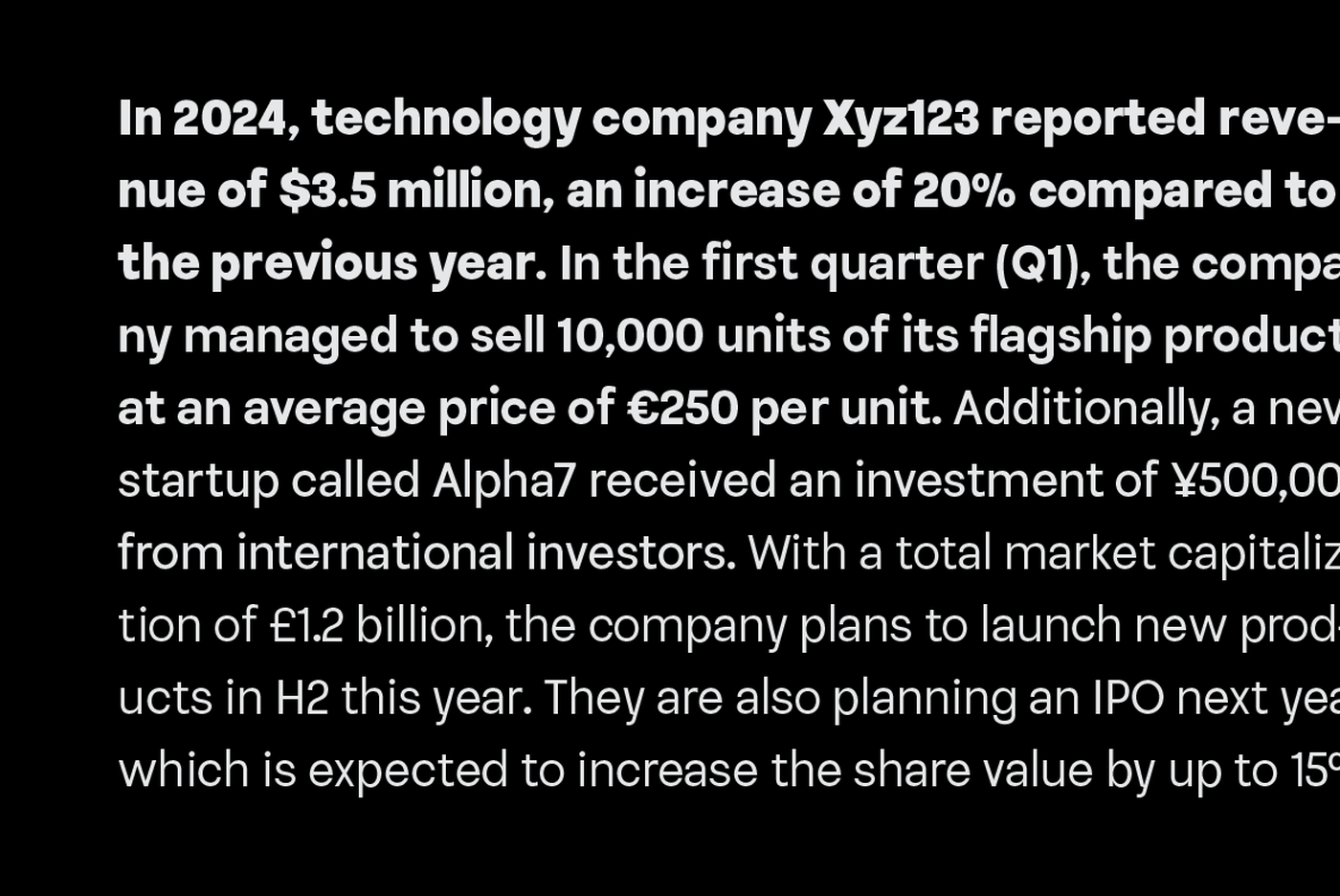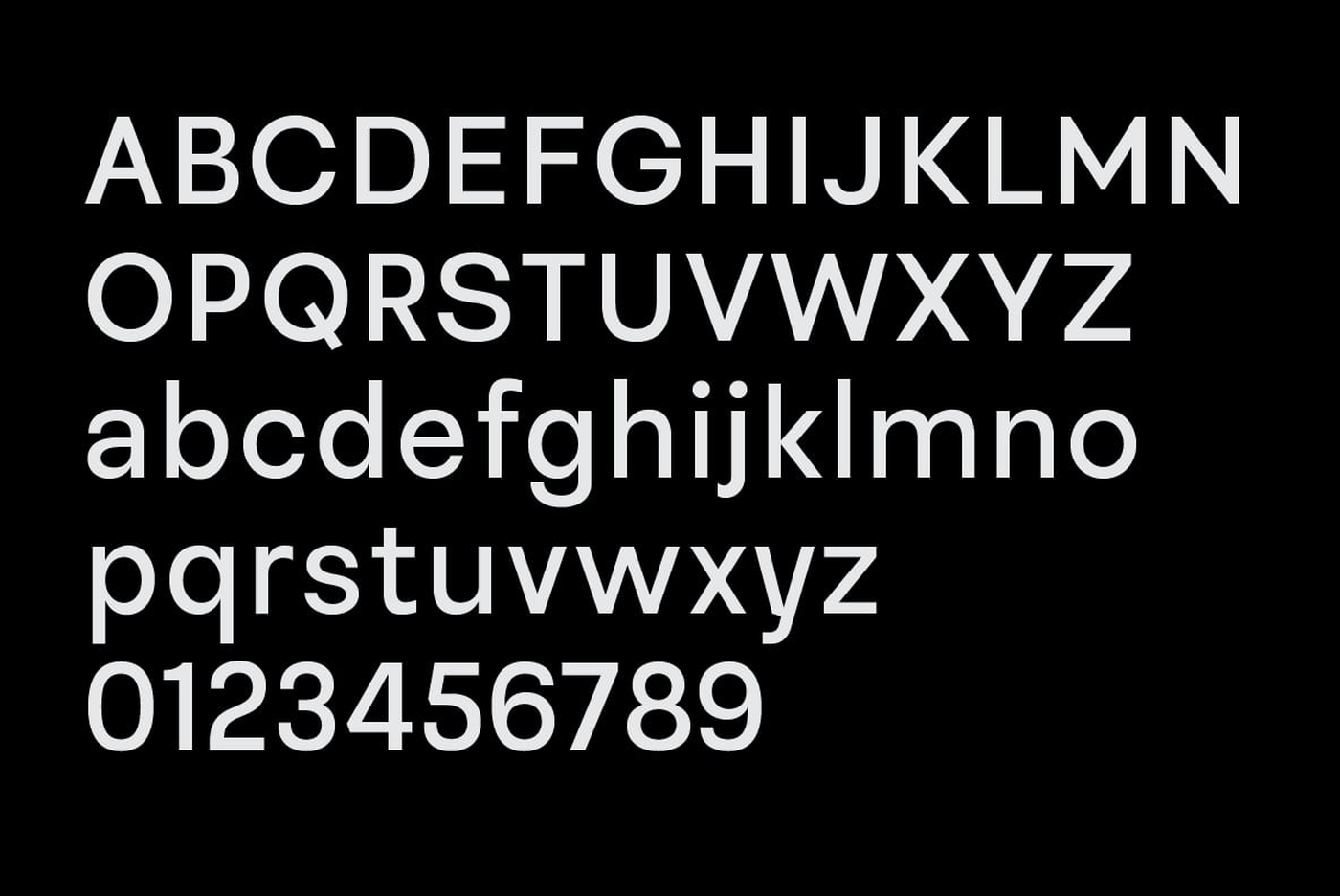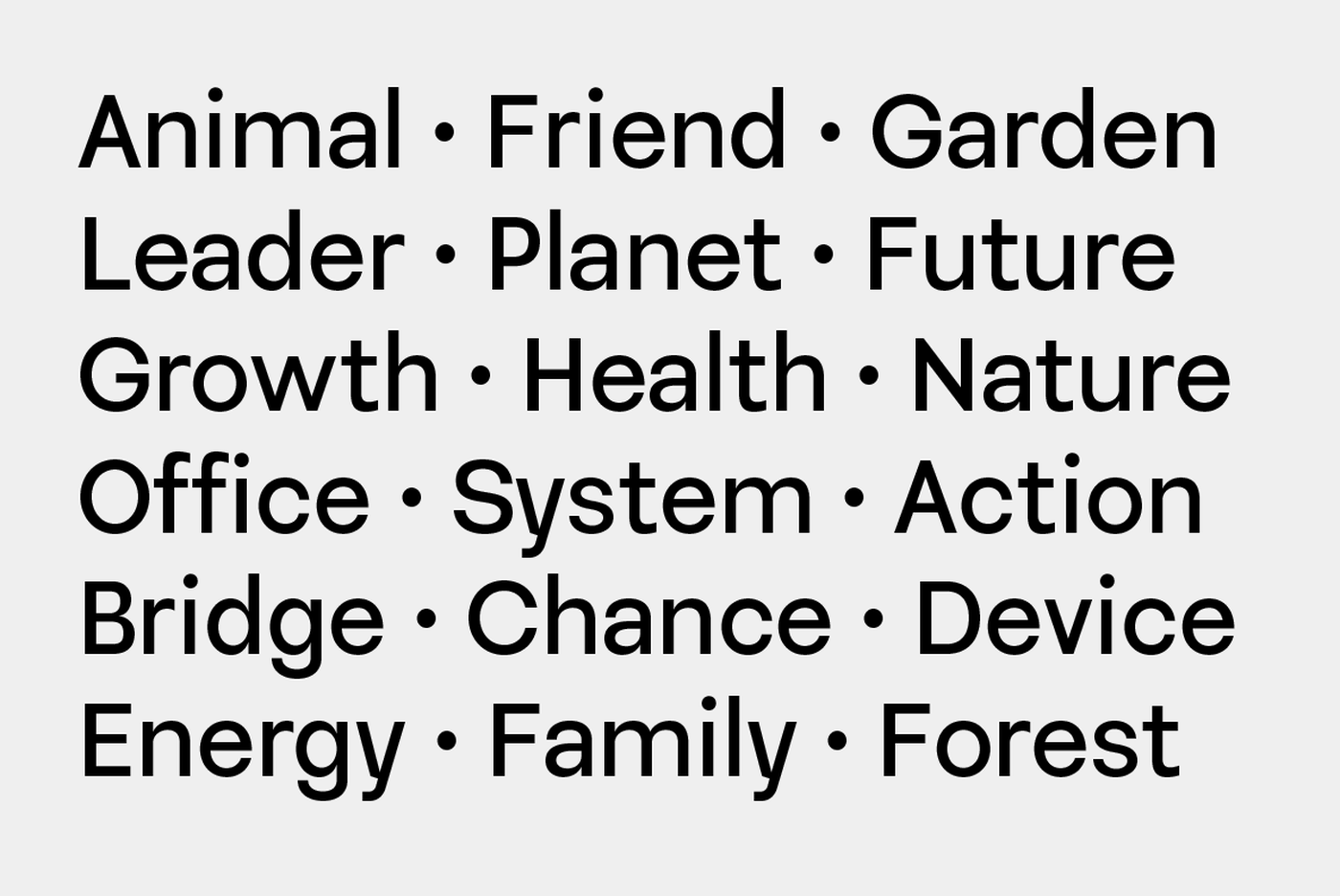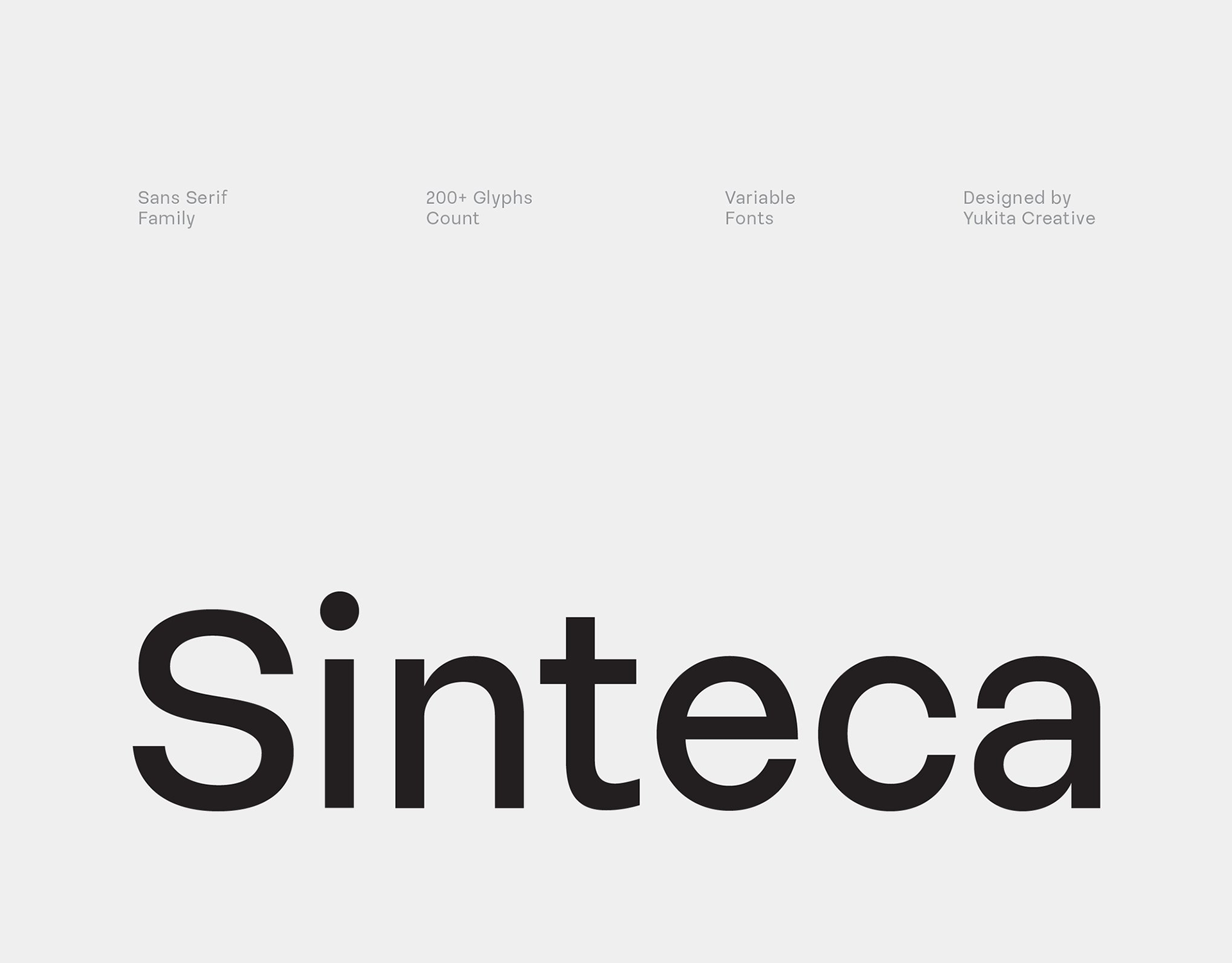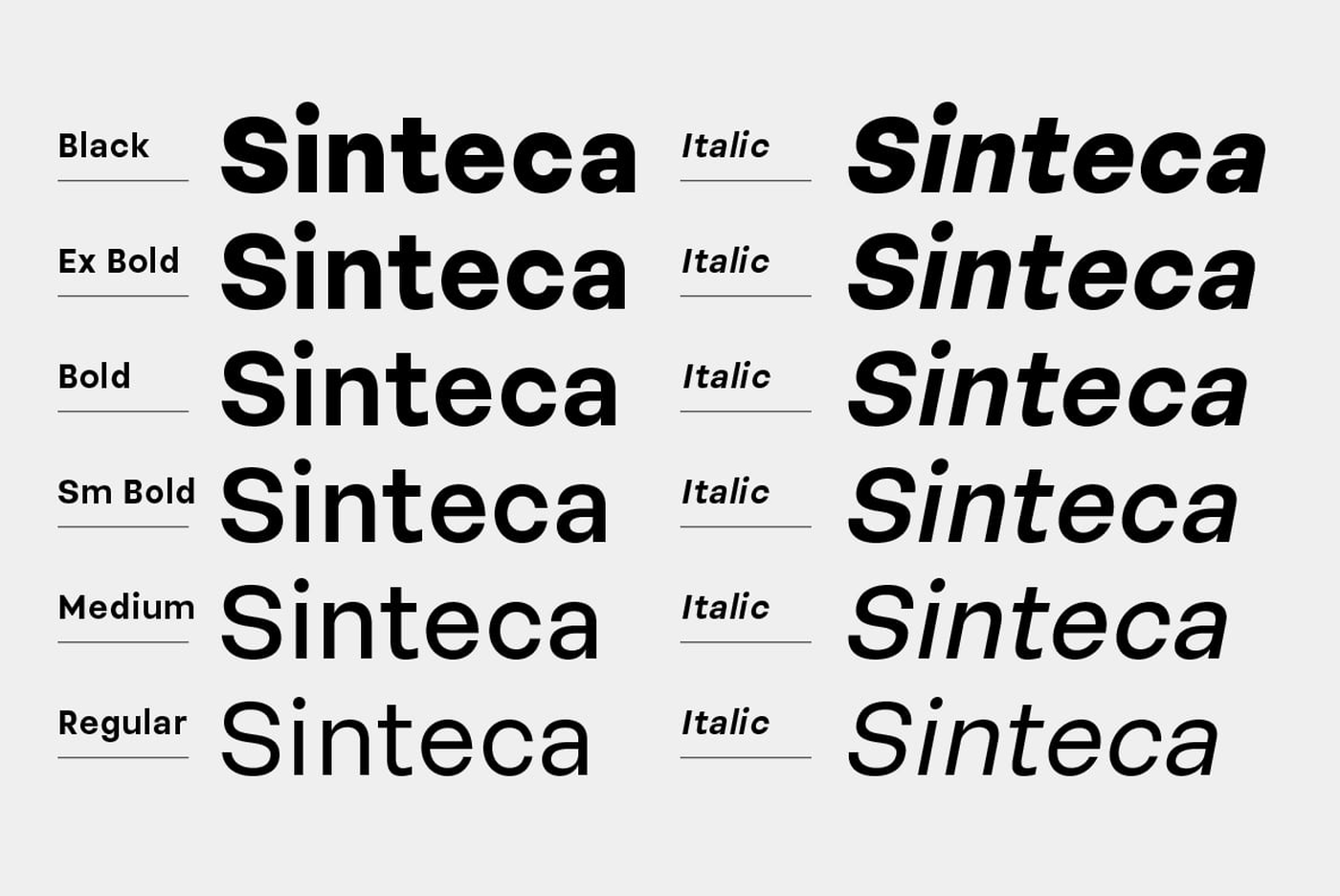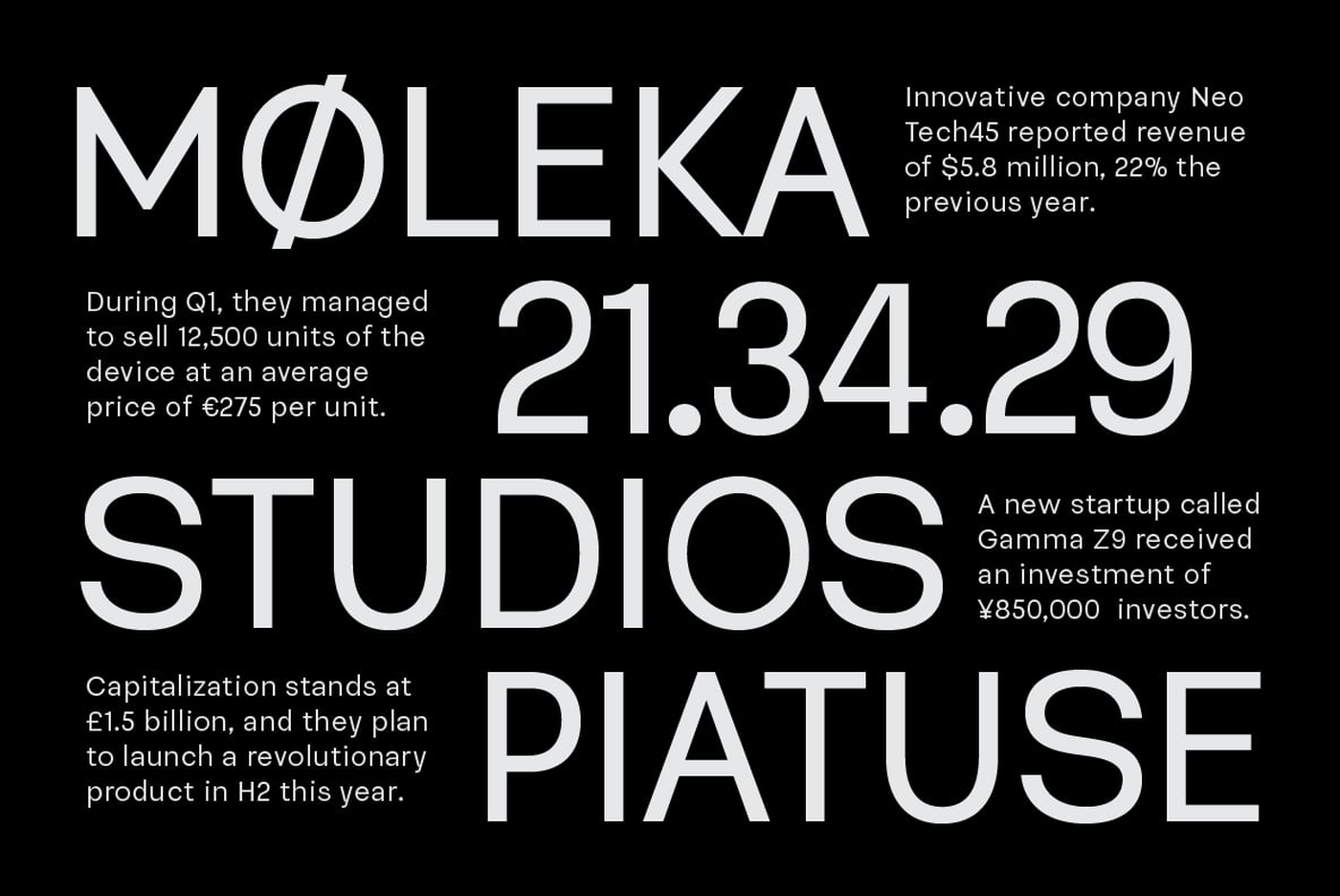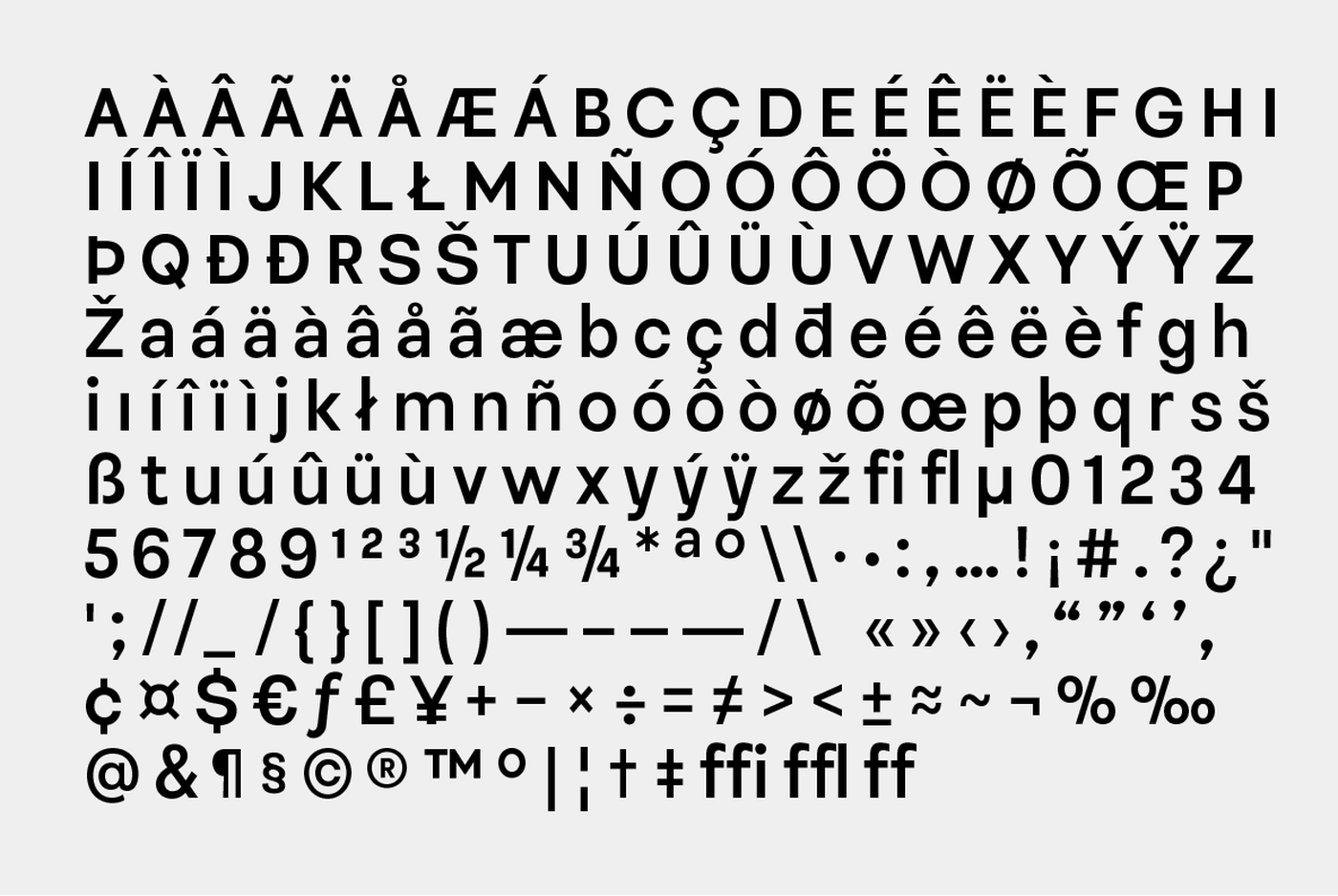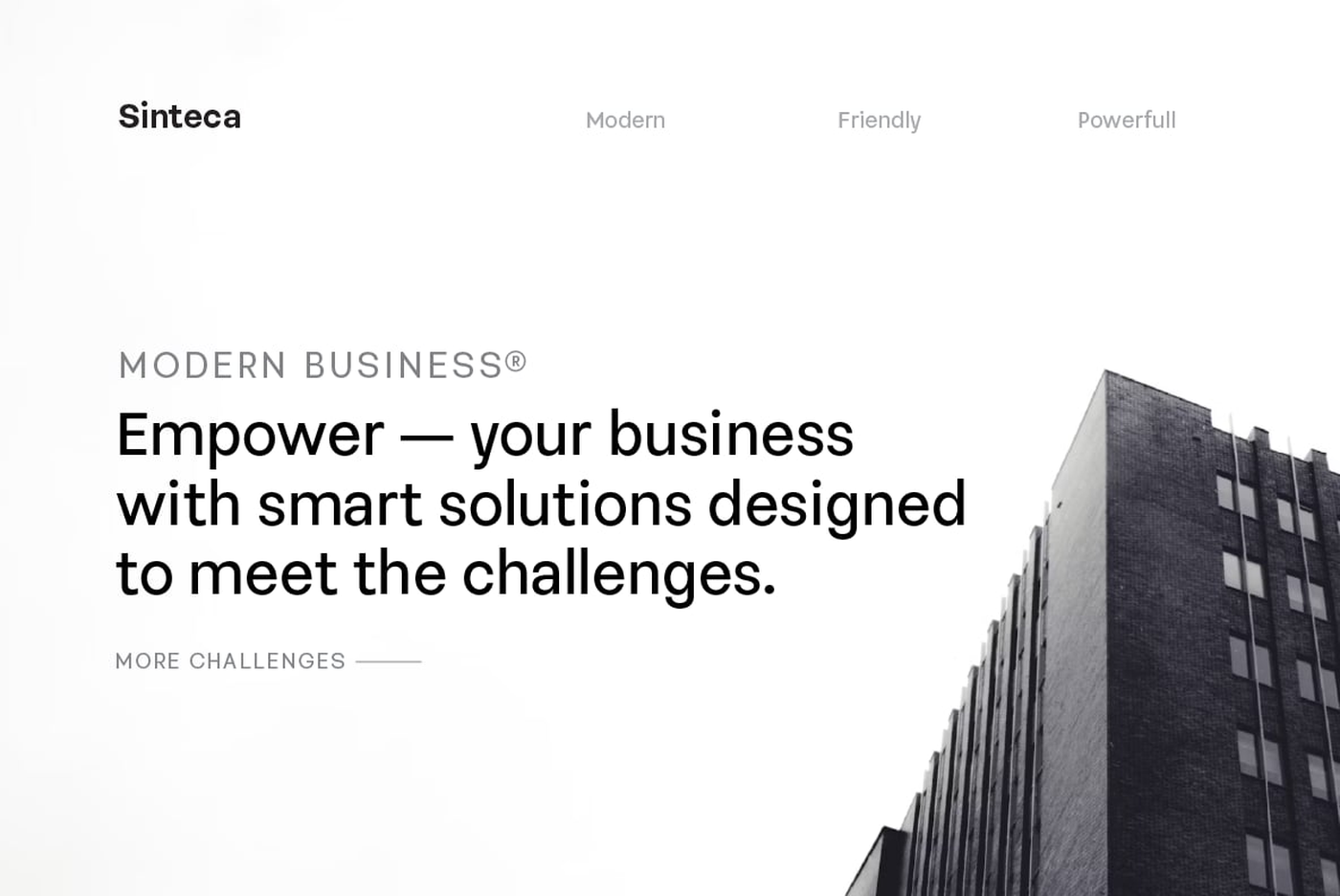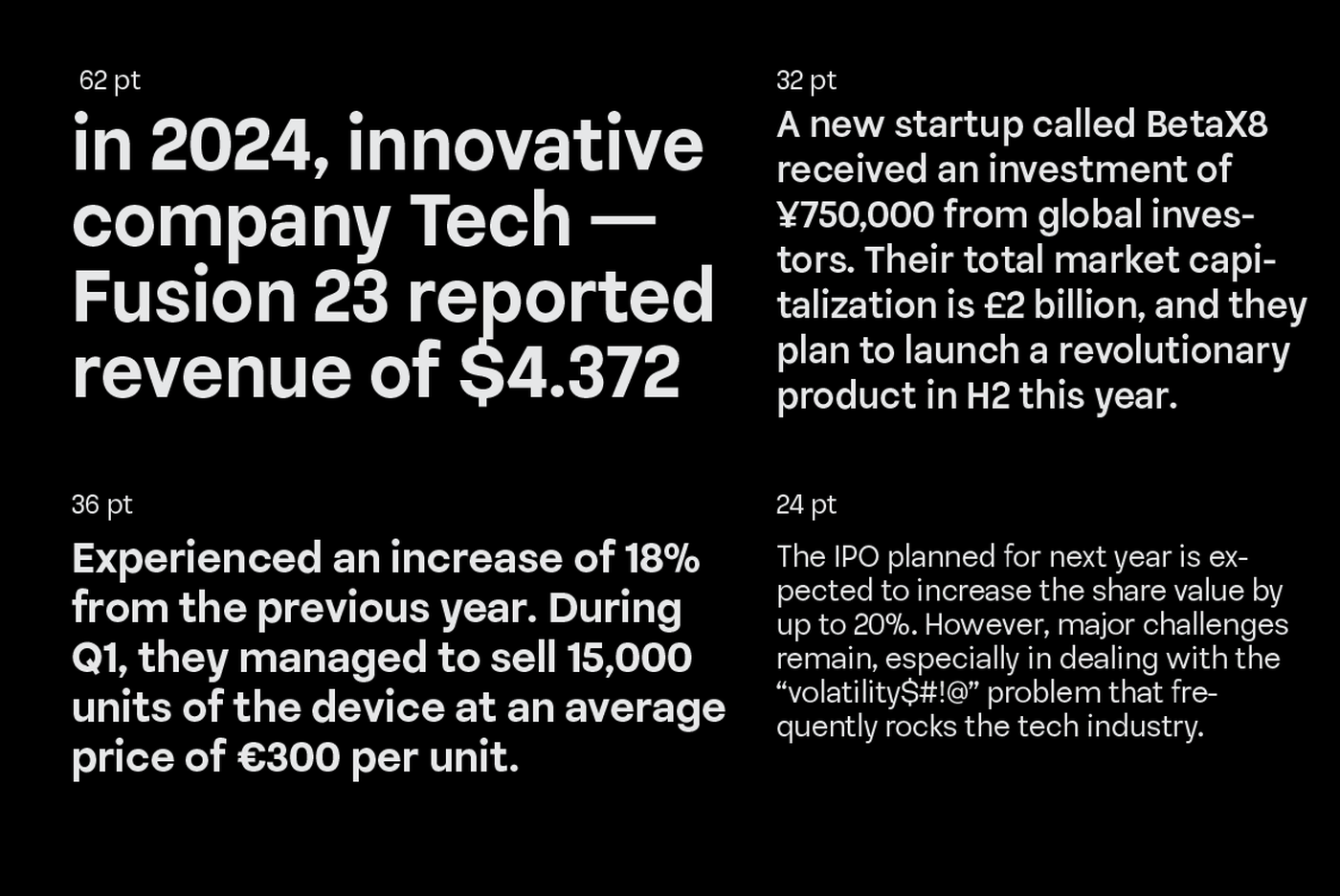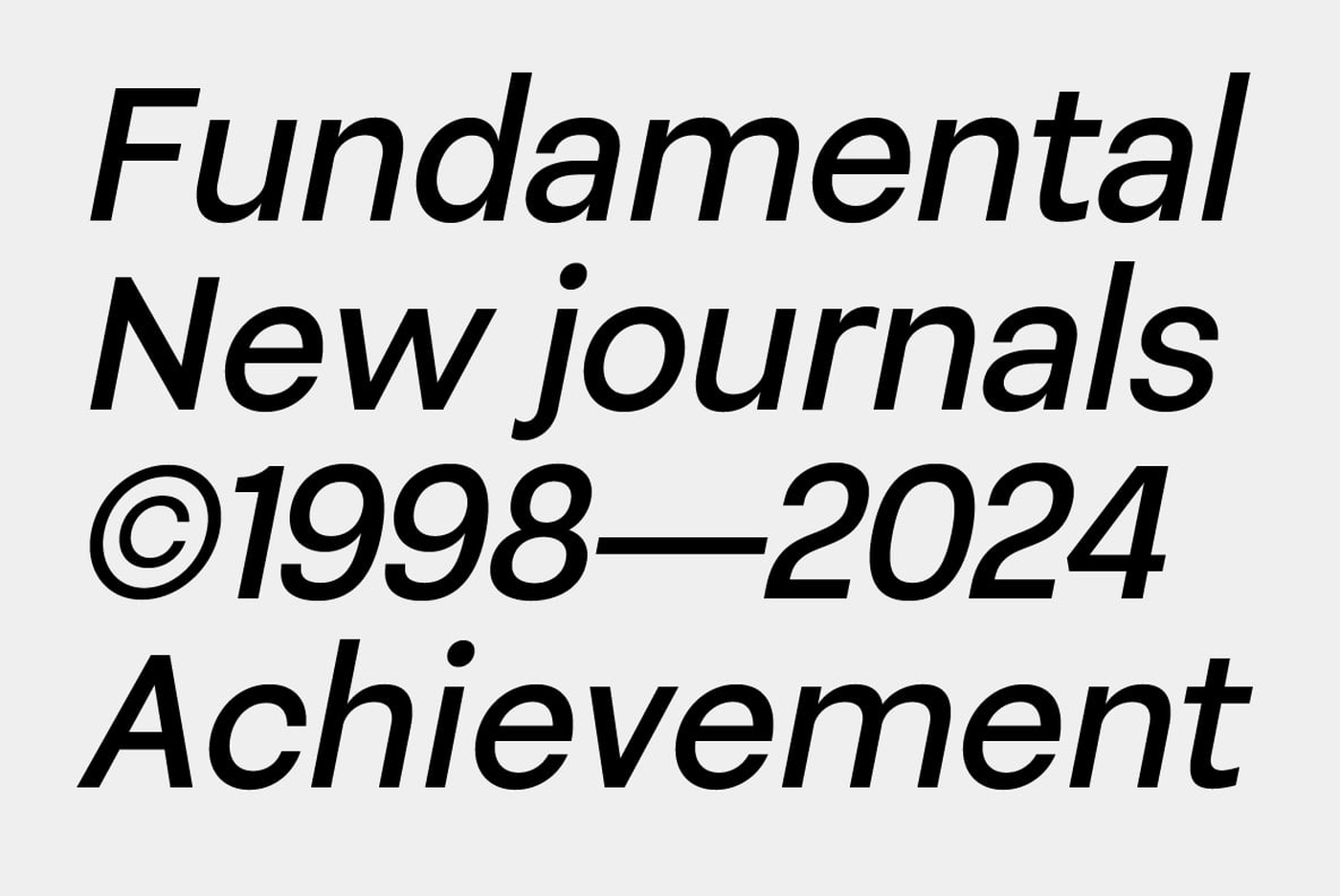
Sinteca - Sans Serif Font Family
Sinteca is a font designed with contemporary beauty and readability as top priorities. This font offers great flexibility with 12 thickness options, from Regular to Black, making it the perfect choice for a variety of design projects.
Designer: Yukita Creative
Font: Sinteca